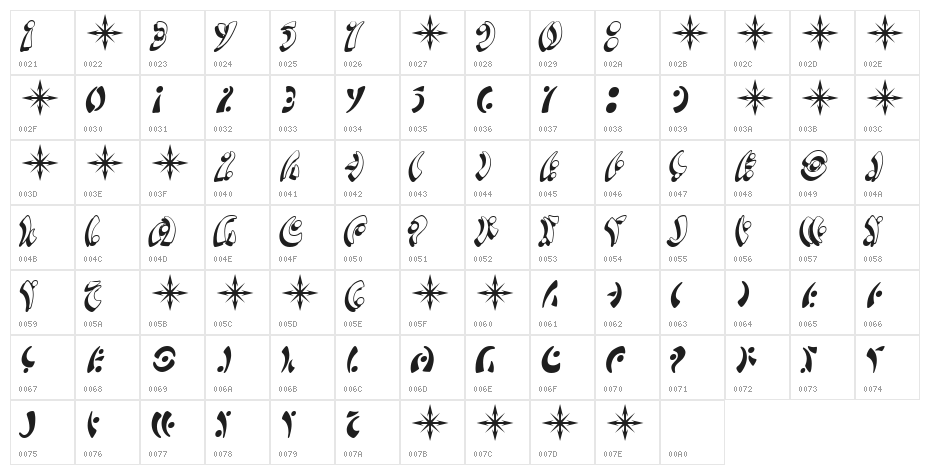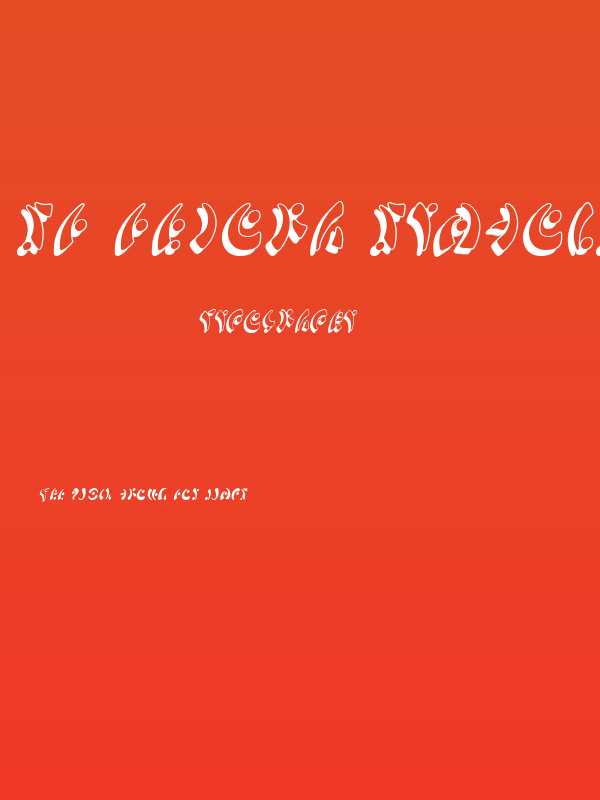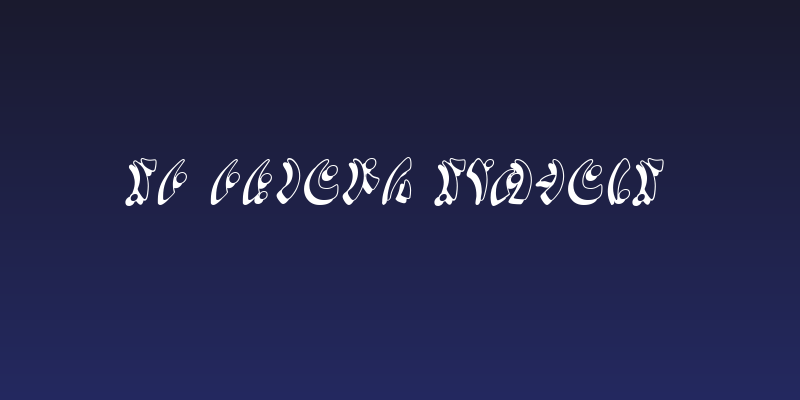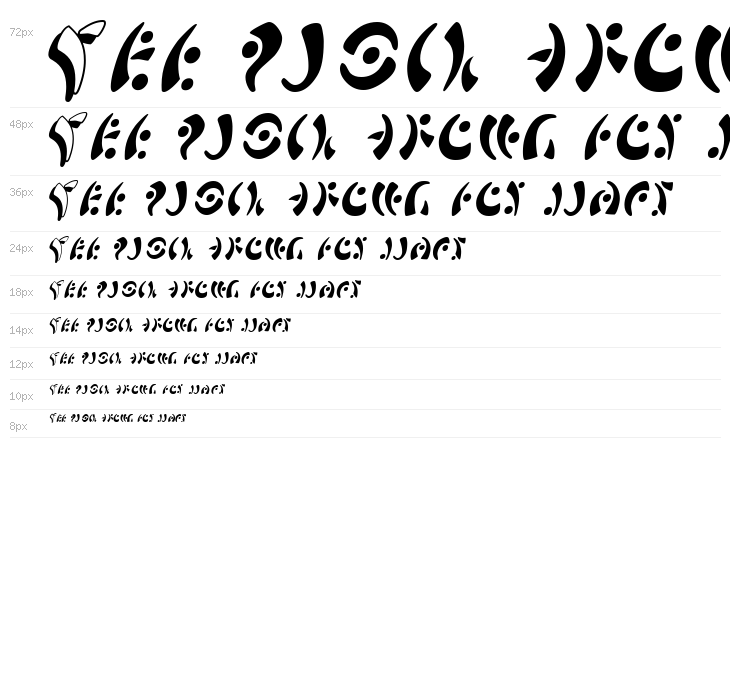
SF Fedora Symbols Font
SF Fedora Symbols Description
This font is a highly decorative and abstract design, characterized by its bold, swirling shapes and intricate details. Each character is uniquely crafted with a combination of thick and thin strokes, creating a dynamic and eye-catching appearance. The font features a high level of contrast, with some parts of the letters being significantly thicker than others. This gives the font a dramatic and artistic flair, making it suitable for creative and unconventional projects. The characters are closely spaced, adding to the compact and cohesive look of the text. The overall style is modern and avant-garde, with a touch of whimsy and playfulness. This font is not suitable for body text due to its complex design but can be effectively used in headlines, logos, and artistic compositions where a bold statement is desired.
| Overall Style | Modern, Avant-garde |
| Use Case | Headlines, Logos, Artistic compositions |
| Proposed Projects | Ideal for use in creative projects such as album covers, posters, logos, and artistic branding materials. |